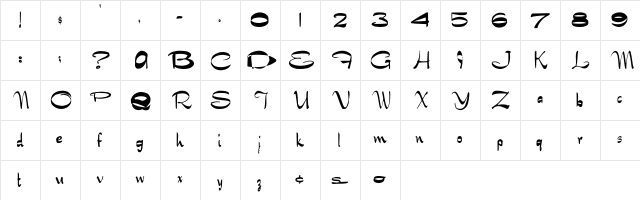
NewSymbolFont4 Regular
Design Context for NewSymbolFont4 Typeface
NewSymbolFont4 is a composed and adaptable typeface that performs quietly and consistently across a wide range of design contexts.